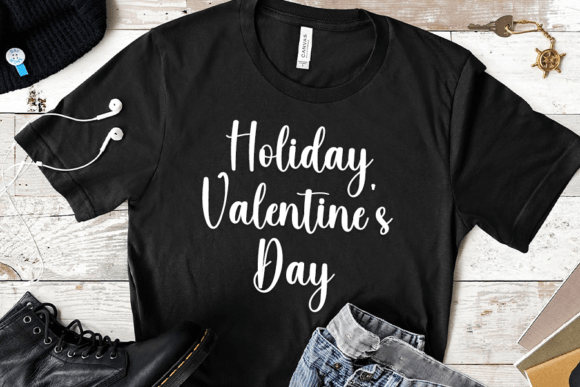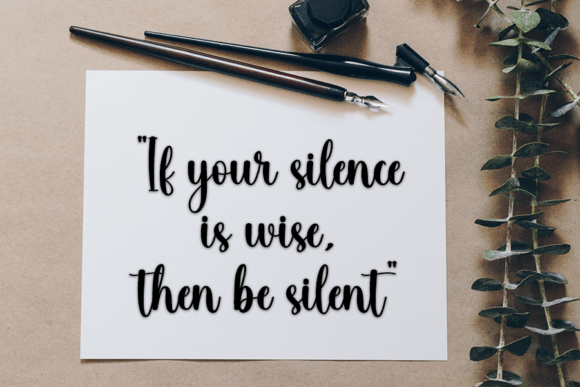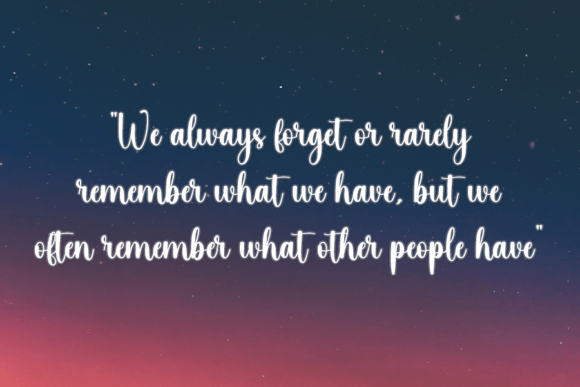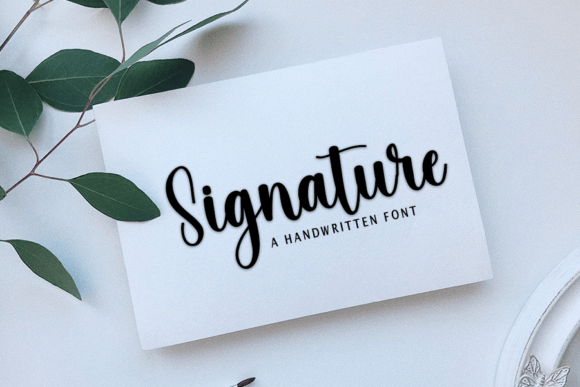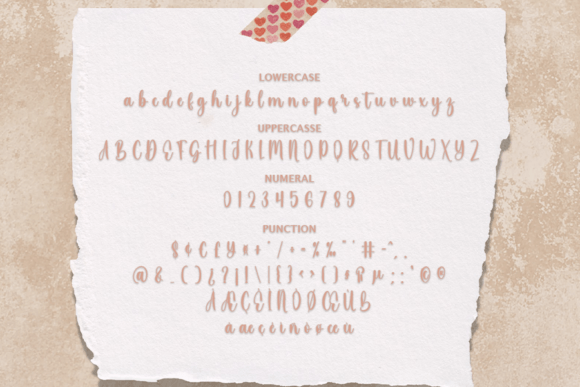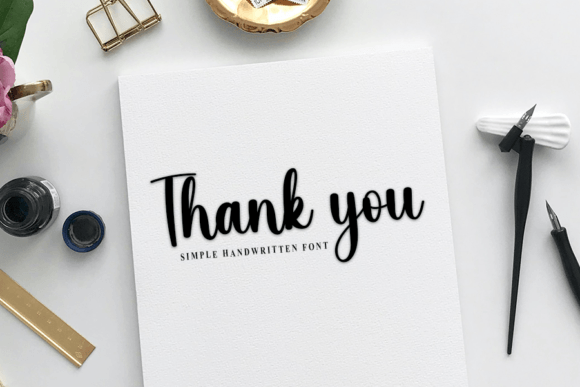
Introduction to Homestead Font Font
Fonts play a crucial role in design, and the Homestead Font font is a typeface that brings both character and versatility to any project. Whether you’re working on a branding project, a website, or a print design, the Homestead Font font offers a unique style that can elevate your work.
Homestead is a delicate handwritten font carefully crafted for a cool and unique design.
This font can be used to write letters, invitations, food products, titles, and more .
Key Features of Homestead Font Font
Why Choose Homestead Font Font?
The Homestead Font font is more than just a typeface – it’s a design tool that helps you communicate your message with style and clarity. Its unique character set and versatile design make it suitable for a wide range of applications, from elegant invitations to bold headlines.
With its carefully crafted letterforms and balanced proportions, the Homestead Font font ensures readability and visual appeal across all mediums.
What makes Homestead Font font special?
The Homestead Font font stands out with its unique design, exceptional readability, and versatility across various design applications.